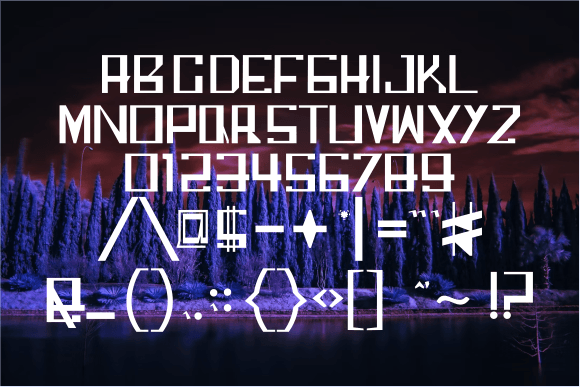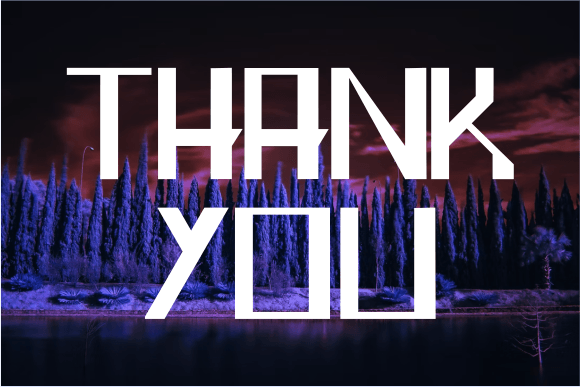
The Brokee Font: Elevate Your Creations with this Modern Display Powerhouse
I’ll never forget the design struggle is real moment I had last week. I was working on a branding project for a trendy new coffee shop, and I just couldn’t find the perfect font to capture their modern and edgy vibe. That was until I stumbled upon the Brokee font. This stunning display font has been a game-changer for my design workflow, and I’m excited to share my experience with you.
Here’s the lowdown on what makes Brokee an amazing addition to your font library:
• ✨ Modern and bold: Brokee’s sleek lines and geometric shapes make it perfect for headlines, titles, and statements.
• ✅ Trendy and stylish: This font is designed to elevate your creations and give them a fresh, contemporary look.
• 💡 Highly versatile: Brokee can be used for a wide range of projects, from branding and advertising to packaging and digital media.
Now, no font is perfect, and Brokee has a few minor quirks to keep in mind:
• 🤔 Limited legibility at small sizes: As with many display fonts, Brokee is best used at larger sizes (24px and up) to ensure optimal readability.
• ⚠️ Some glyphs may require manual adjustment: Depending on your design software, you may need to tweak certain glyphs to get the perfect fit.
The Story Behind Brokee: Designer Inspiration
According to its creators, Brokee was inspired by the latest trends in modern design, with a focus on clean lines, geometric shapes, and bold statements. The font’s sleek aesthetic is perfect for designers looking to create eye-catching headlines, titles, and branding elements.
Q: What type of projects is Brokee best suited for?
A: Brokee is ideal for branding, advertising, packaging, and digital media projects that require a modern and bold display font.
Q: Does Brokee support OpenType features?
A: Yes, Brokee includes OpenType features such as ligatures, stylistic alternates, and glyphs, which can be accessed in compatible design software.
Q: Is Brokee suitable for body text?
A: While Brokee is primarily designed as a display font, it can be used for short blocks of body text. However, for longer passages, a more legible font may be more suitable.